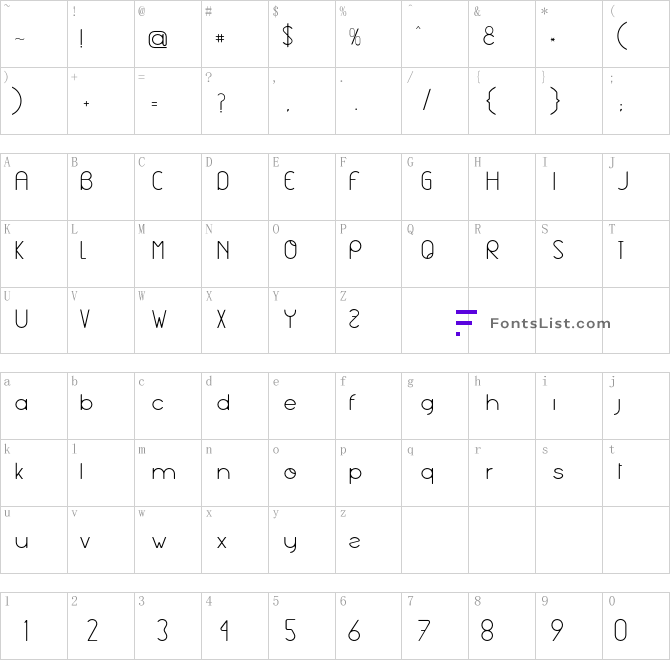
- Font Name:Aghila
Aghila.otf is a very beautiful artistic font, Aghila.otf is widely used in the design and printing of various books and pictures,Aghila.otf has a strong visual impact,Aghila.otf is a commonly used font in newspapers, magazines and books, and is used in posters, e-commerce Poster design, store design, logo design, font design and other fields.Aghila.